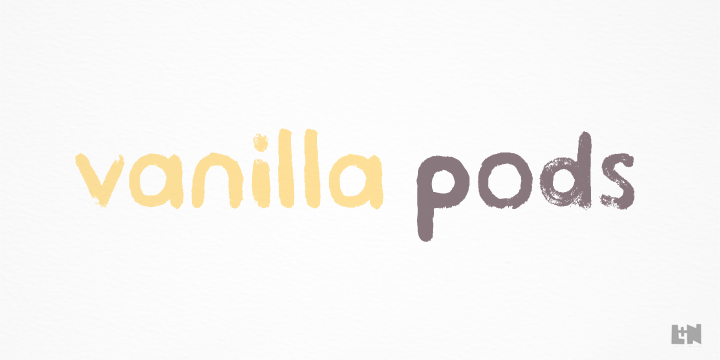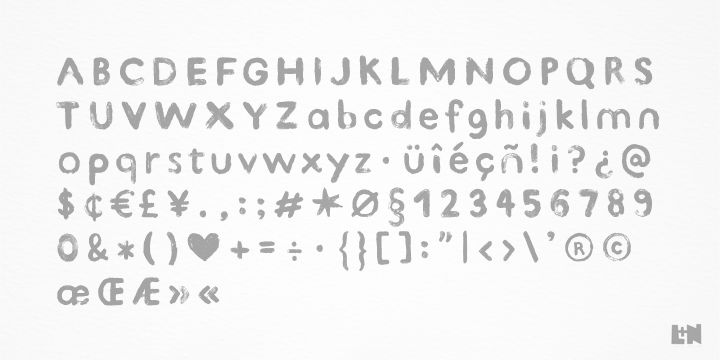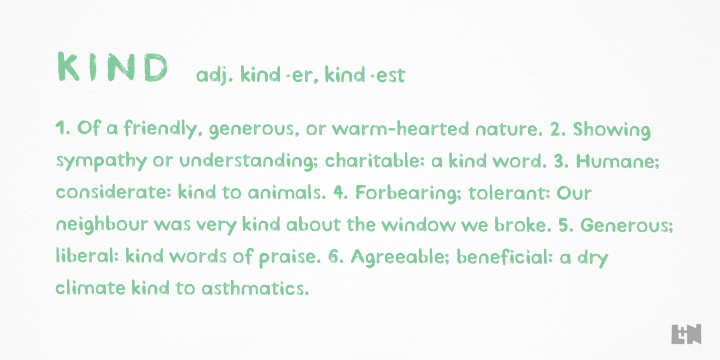
Kind Type
Kind Type is based on watercolor painted letters. Open, bold strokes with rounded terminals make it a very legible typeface even at small size. Kind Type has a soft, friendly character with a distressed edge. It is suitable for short paragraphs, captions…